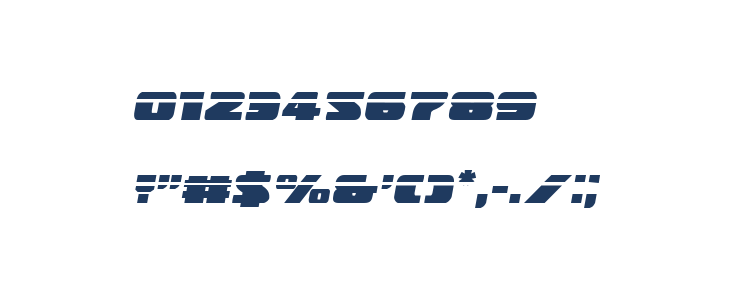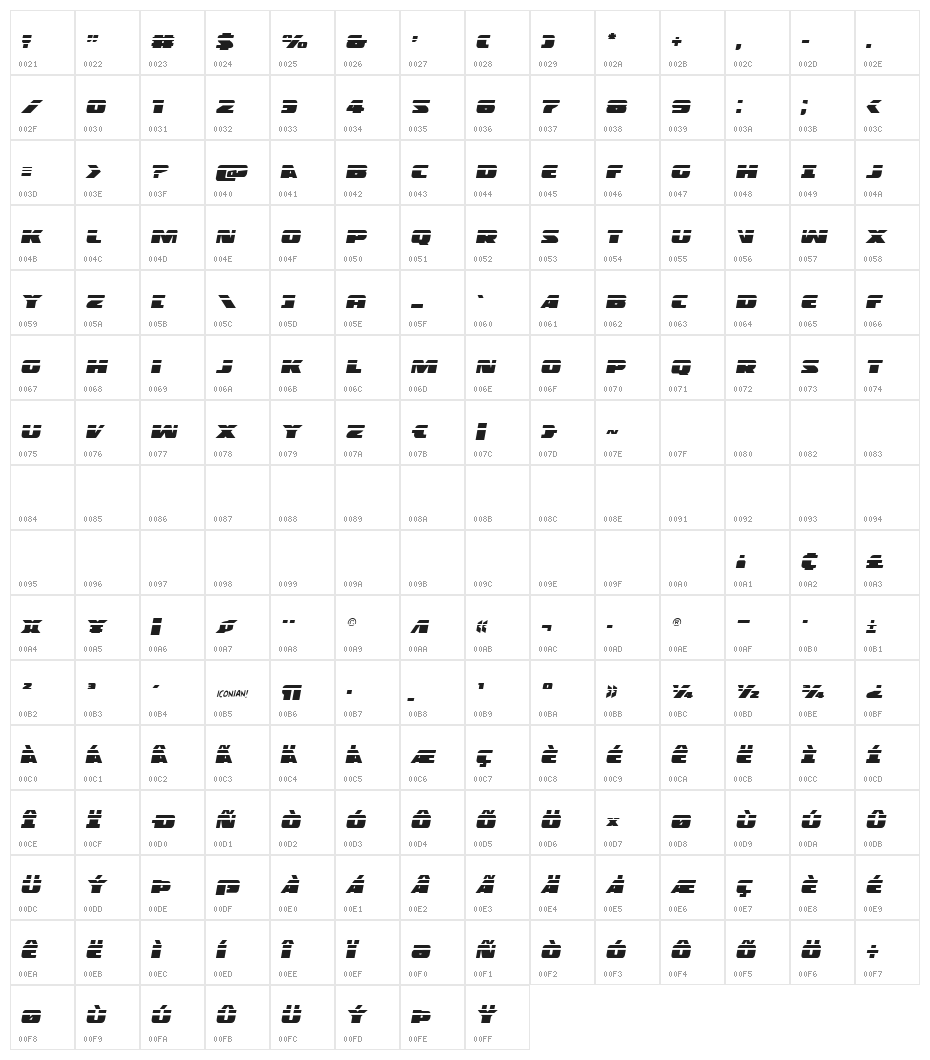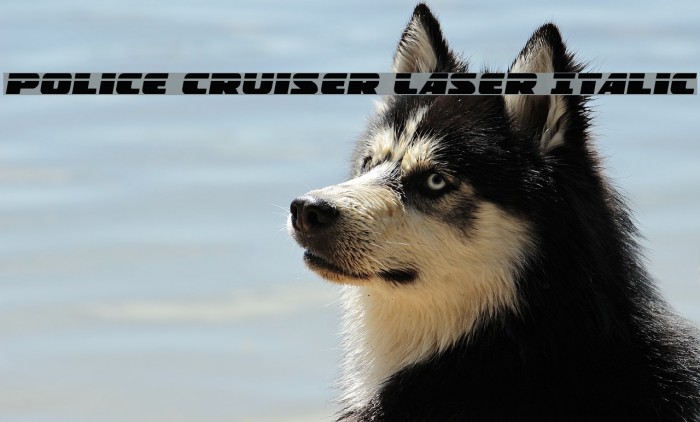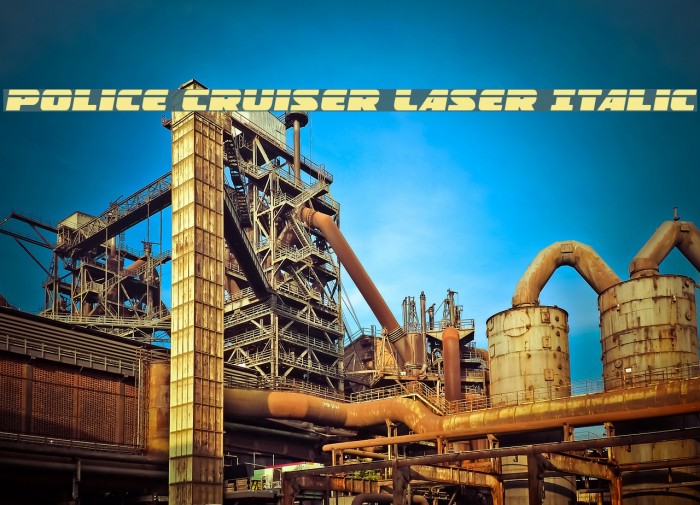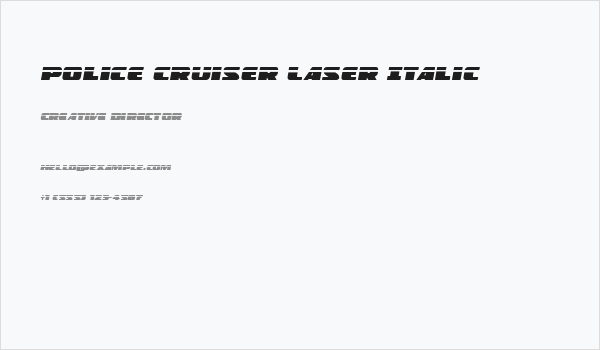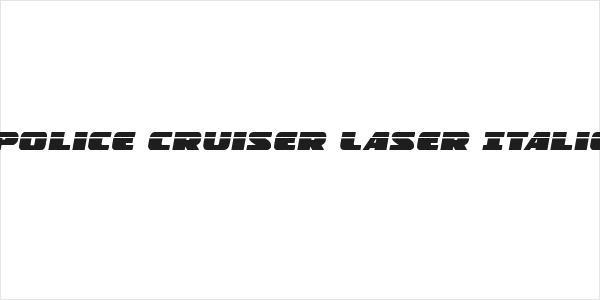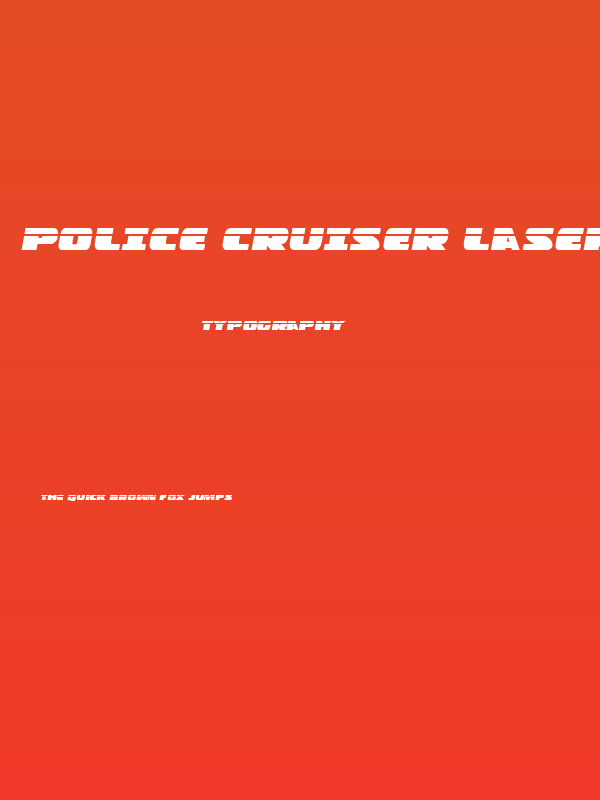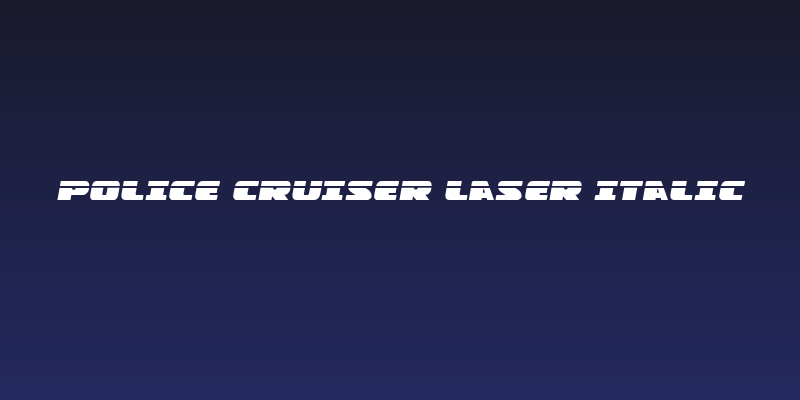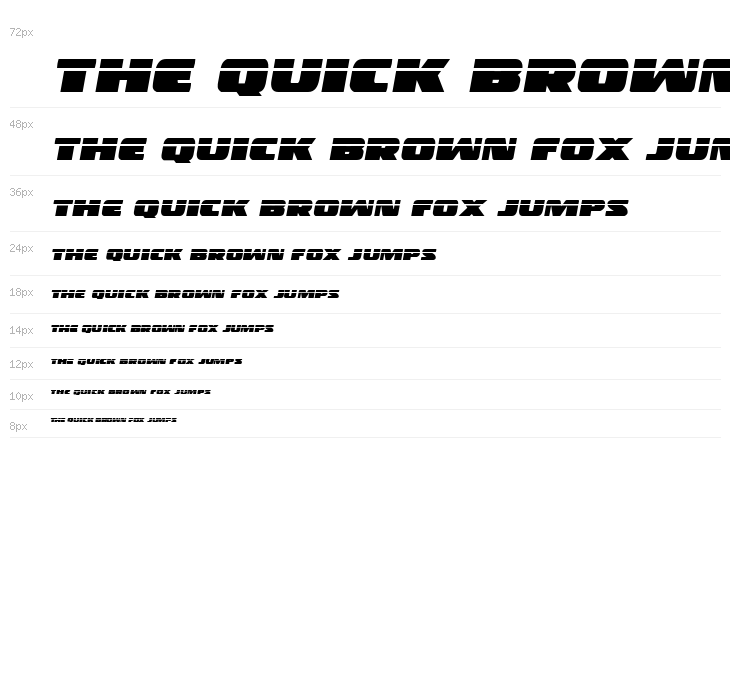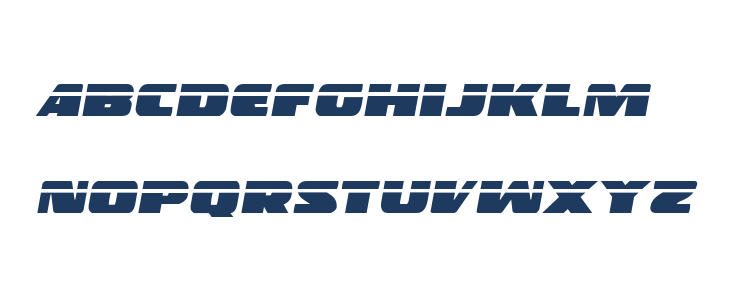
Police Cruiser Laser Italic Font
Police Cruiser Laser Italic Description
This font features a bold and dynamic style with a futuristic and angular design. The characters are italicized, giving a sense of motion and speed. The uppercase letters are prominent and wide, while the lowercase letters maintain the same boldness, creating a cohesive look. The numbers and special characters follow the same design principles, ensuring consistency across all elements. The font's geometric shapes and sharp edges make it stand out, ideal for projects that require a modern and edgy aesthetic.
| Proposed Projects | Ideal for use in sci-fi themed projects, video game titles, automotive branding, or any design that requires a modern and dynamic look. |